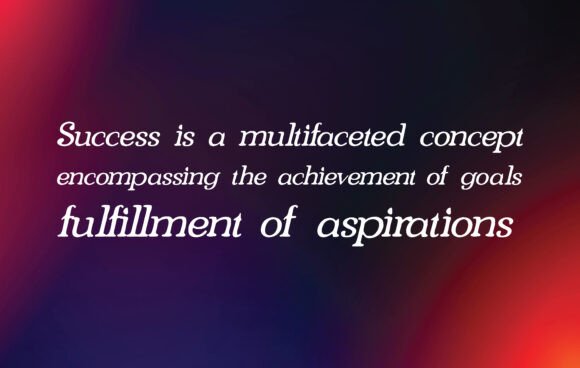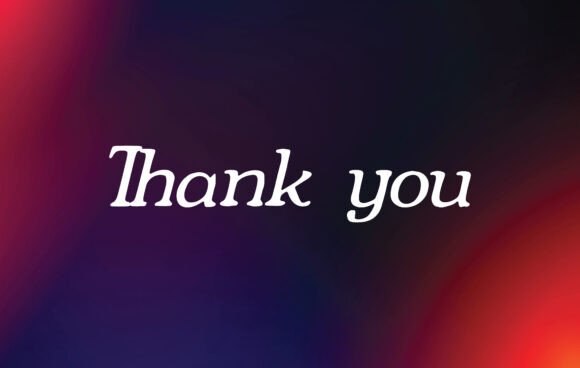
Discover the Beauty of Gregory Font: Elevate Your Designs with this Lovely Handwritten Font
Are you a designer or crafter looking for a font that can take your creative ideas to the next level? Look no further than the Gregory Font. This stunning handwritten font is perfect for creating eye-catching logos, branding, and quotes that will leave a lasting impression on your audience.
The Beauty of Gregory Font
Gregory Font is a lovely and beautiful handwritten font that exudes elegance and sophistication. Its unique and flowing script is perfect for adding a personal touch to your designs, making them stand out from the crowd. Whether you’re creating a logo, branding materials, or social media graphics, Gregory Font is the perfect choice.
Key Features of Gregory Font
- Handwritten script: Gregory Font features a beautiful handwritten script that adds a personal touch to your designs.
- Elegant and sophisticated: The font’s unique and flowing script makes it perfect for creating elegant and sophisticated designs.
- Versatile: Gregory Font can be used for a wide range of design projects, from logos and branding to quotes and social media graphics.
- Easy to read: Despite its elegant script, Gregory Font is easy to read, making it perfect for body text and headlines.
Why Choose Gregory Font?
So why choose Gregory Font for your design projects? Here are just a few reasons:
- Stand out from the crowd: With Gregory Font, you can create designs that stand out from the crowd and leave a lasting impression on your audience.
- Add a personal touch: The font’s handwritten script adds a personal touch to your designs, making them more relatable and engaging.
- Perfect for creative projects: Gregory Font is perfect for creative projects, such as logos, branding, and quotes, where you want to make a statement.
How to Use Gregory Font
Using Gregory Font is easy. Here are a few tips to get you started:
- Use it for headlines: Gregory Font is perfect for headlines and titles, where you want to make a statement.
- Pair it with other fonts: You can pair Gregory Font with other fonts to create a unique and interesting design.
- Experiment with colors: Gregory Font looks great in a variety of colors, so don’t be afraid to experiment and find the perfect color for your design.
In conclusion, Gregory Font is a beautiful and versatile handwritten font that is perfect for designers and crafters looking to elevate their creative ideas. With its elegant and sophisticated script, it’s perfect for creating eye-catching logos, branding, and quotes that will leave a lasting impression on your audience. So why wait? Download Gregory Font today and start creating stunning designs that will take your creativity to the next level.
- What is Gregory Font?: Gregory Font is a lovely and beautiful handwritten font that is perfect for creating eye-catching logos, branding, and quotes.
- Is Gregory Font easy to read?: Yes, Gregory Font is easy to read, making it perfect for body text and headlines.